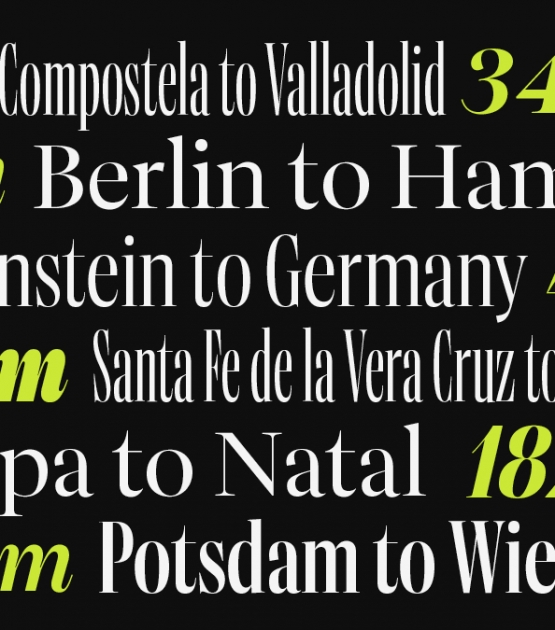
Aneto Skyline
Designed by Veronika Burian José Scaglione . Released 2022.
As one of Aneto’s three subfamilies, Aneto Skyline is 36 fonts in a three-width power display, able to arrest the fickle eyes of viewers with the tallest, most impactful, and enticing headlines.
The entire Aneto family is the third within a trilogy, with Catalpa being the first and Belarius the second. Also see the rest of the Aneto family.
The Backstory
Aneto Skyline
A display of power in three widths for relevant and reverberating digital and print headlines.
José Scaglione and Veronika Burian bring the Aneto Skyline serif font family to the forefront of every page it graces. Front pages — above the fold and before the scroll — have as their one purpose to arrest the wandering eyes of viewers and entice them to read further. Aneto Skyline takes this precise role seriously and makes the strongest aesthetic and informational impression. Compared to the rest of the Aneto family, it is neither overly clever nor too simple, but a direct display of power in three widths.
Because of its myriad intended uses, the three pillars of the Aneto family took over three years to complete. Aneto Skyline was specifically created to set the tallest, most impactful headlines in the compressed spaces of magazines, posters, and newspapers. Its height, contrast, and sheer presence commands attention and ensures a headline that reverberates with news harrowing or hopeful.
Aneto Skyline’s features flow from its overall intention, slender structure, and confident style. Naturally, its pinpointed purpose means it has a more concentrated character set than Aneto and Aneto Text, but its six upright and six italic styles are multiplied across three widths each (Condensed, Compressed, Normal) for a total of 36 fonts for maximum impact.
Like its forebears of the early 1900s, the Aneto family has a taller x-height and enlarged counters for better readability, but shortened ascenders and descenders to pack in more letters per line. Other details further increase the message’s impression with alternate sharp serif transitions on ‘C, G, S’ and sharpened angles on wedged alternates ‘A, M, N, V, W’. And marvel at the heaviest styles of Q with its carve-out for clarity.
The two main typographic design problems begging to be solved are reducing file size and adding more style options. So Aneto Skyline optionally groups all 36 static styles into just two variable fonts, using only a fraction of the space. The future is variable and TypeTogether has been producing variable fonts since 2017.
The entire Aneto family is the third within a trilogy, with Catalpa being the first and Belarius the second. Each of the three have a distinct purpose and their own look, but they serve a common goal as a combinatory suite covering an editorial’s wide array of needs. Seen as a piece of textual architecture such as a mansion, Catalpa is the oversized, impressive, and illuminated profile; Belarius is the primary material undergirding the structure; and Aneto, with its three subfamilies, governs everything from the flow and use of space to the details seen within this mansion. Like an oversized door when slammed, Aneto Skyline’s presence carries the greatest textual resonance.